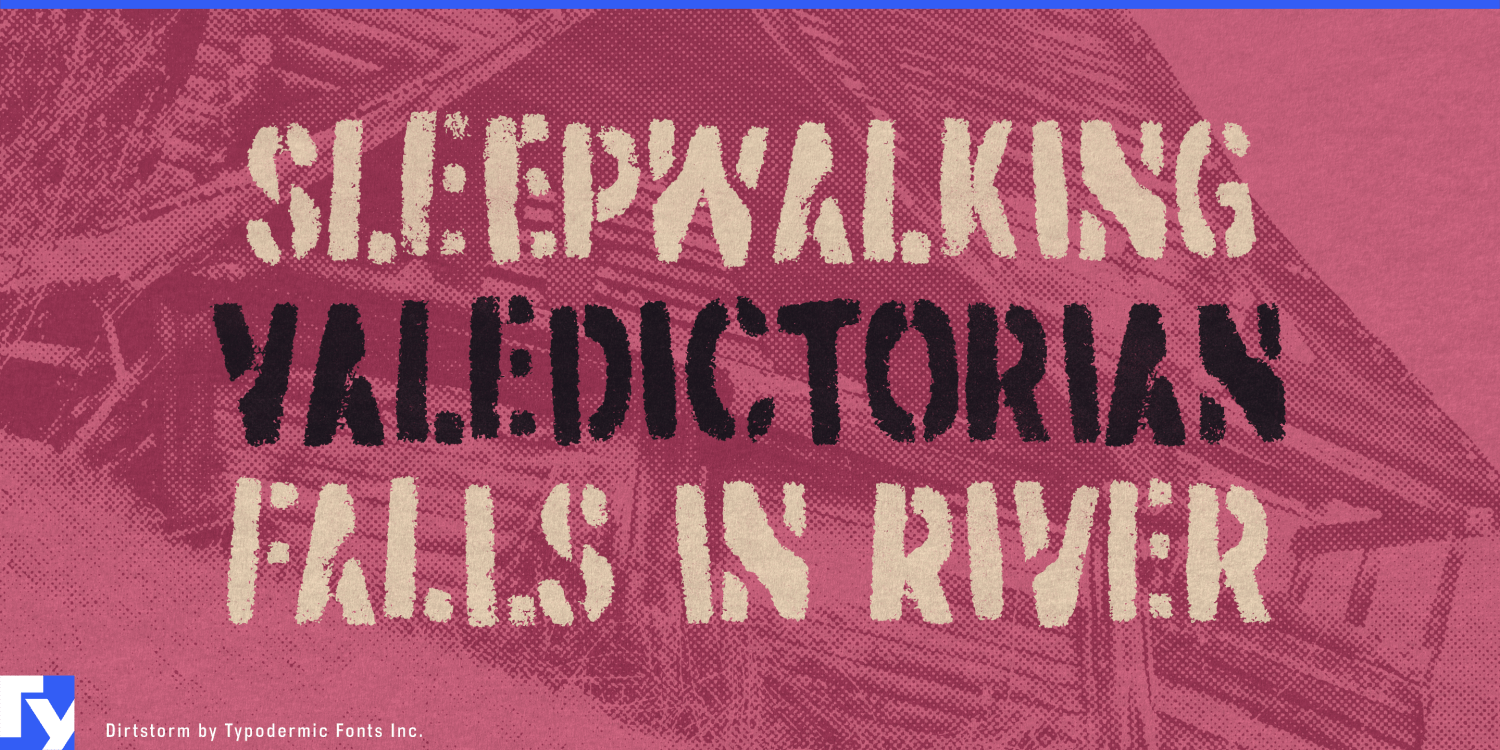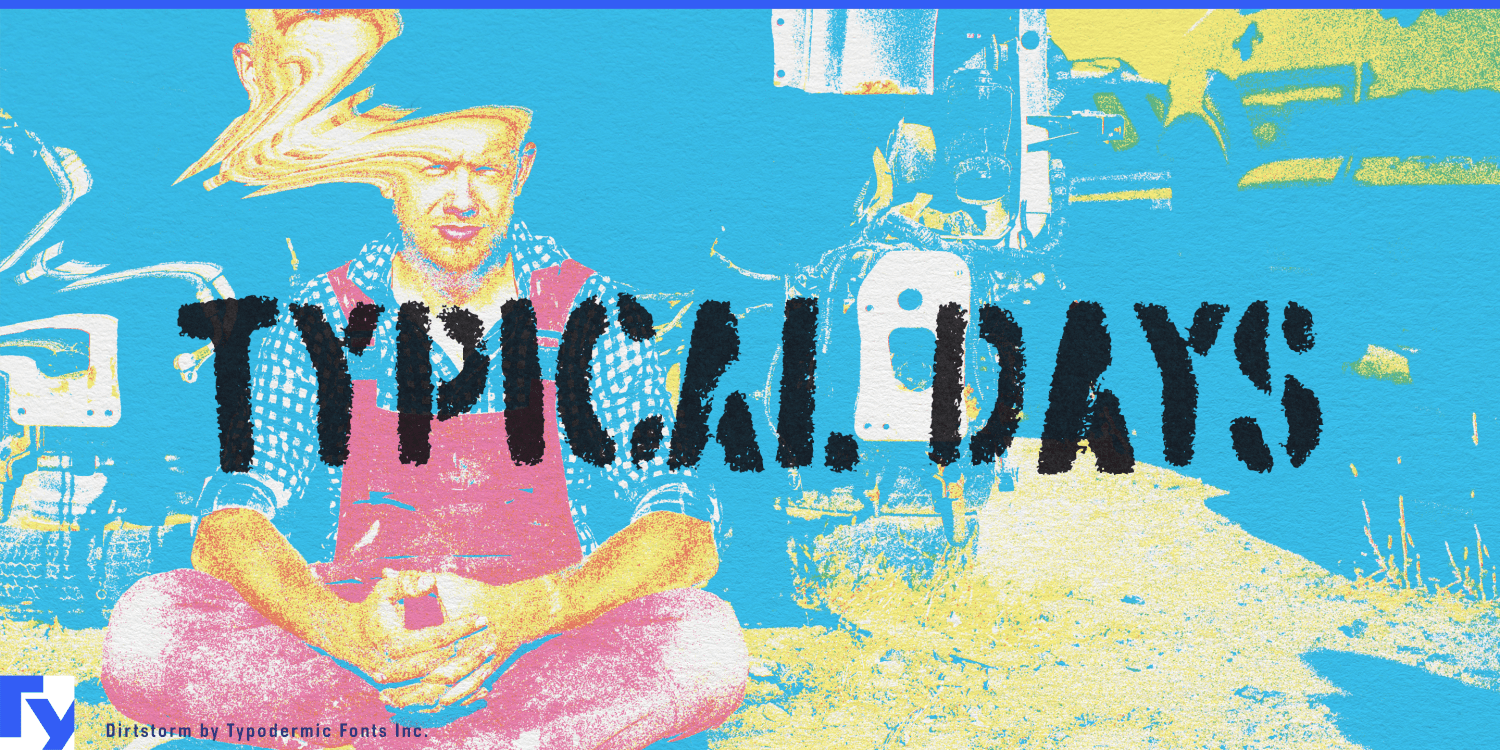
Dirtstorm: The typeface that doesn’t just speak—it shouts from the streets. This Typodermic Fonts creation isn’t your polite, well-behaved font; it’s a gritty manifesto, a visual revolution sprayed across the urban landscape. Crafted…